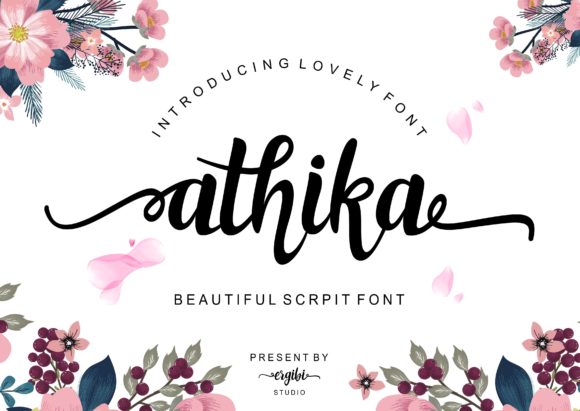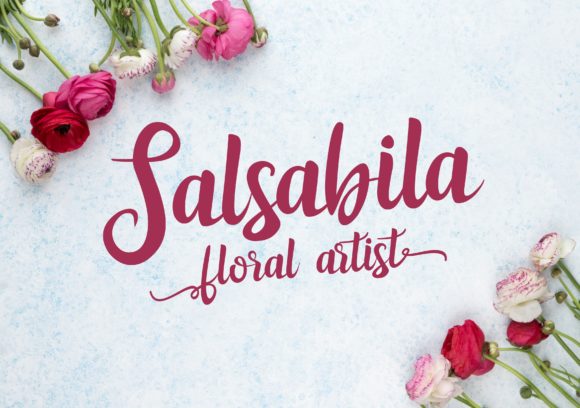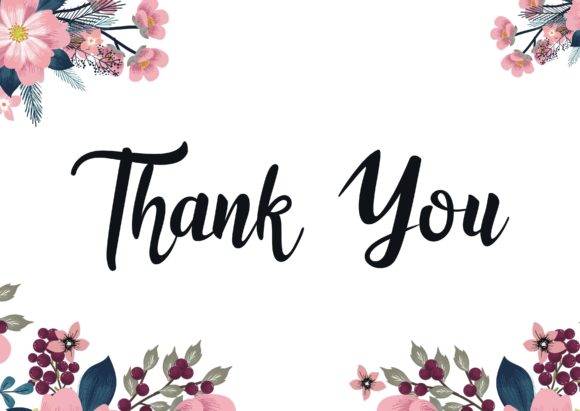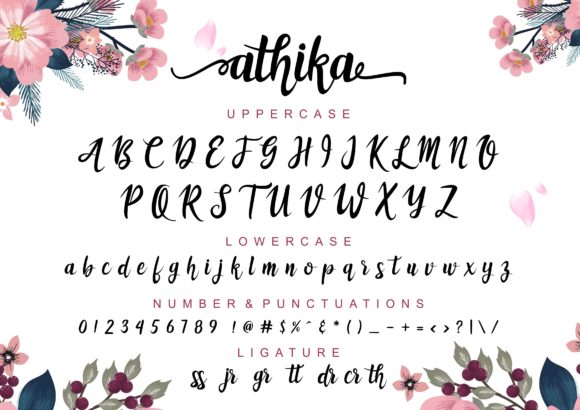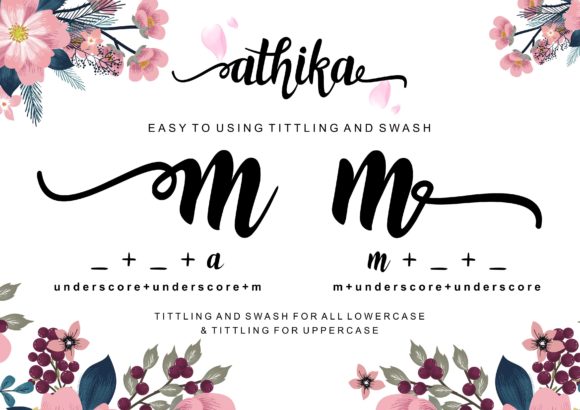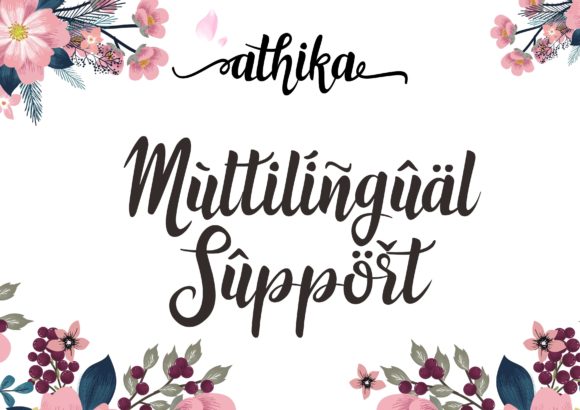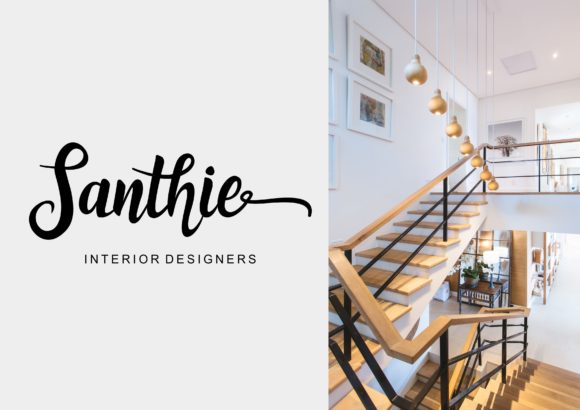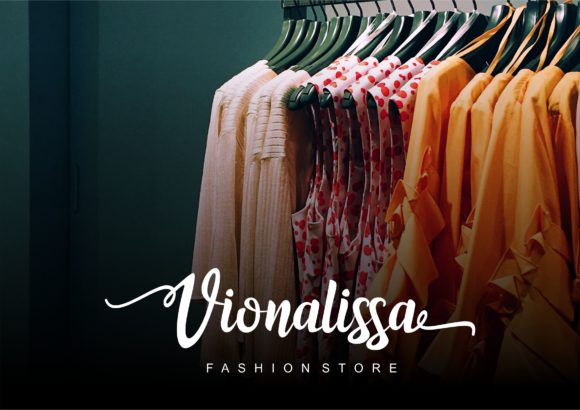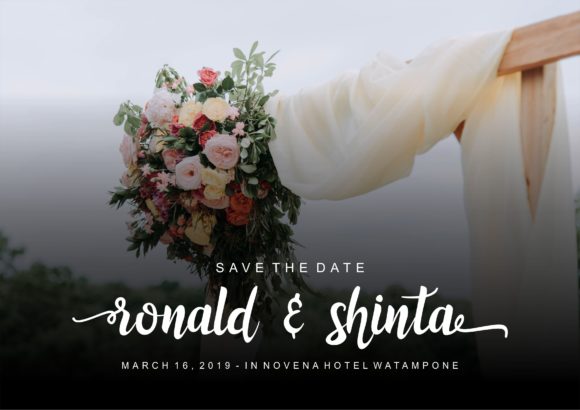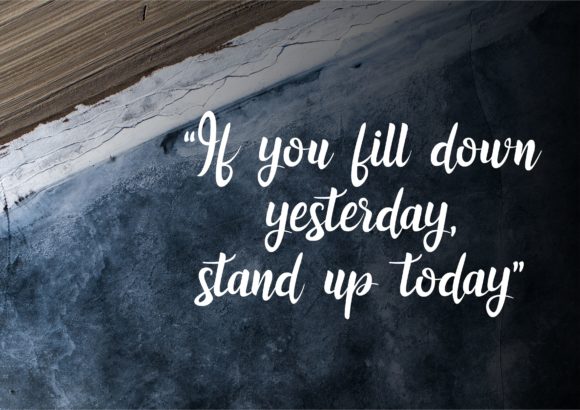
Athika Font
About Athika Font
The Athika is a beautiful script font. It has a modern and elegant look and is perfect for logos, branding, invitations, photography, wedding stationary, labels, and every other design which needs an unique and luxurious touch.